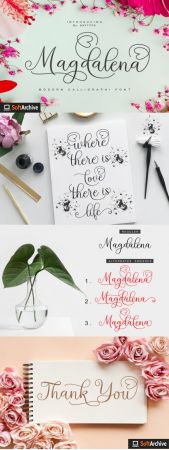
Magdalena is a modern and elegant calligraphic script font. It will elevate a wide range of design projects to the highest level, be it branding, headings, wedding designs, invitations, signatures, logos, labels, and much more!